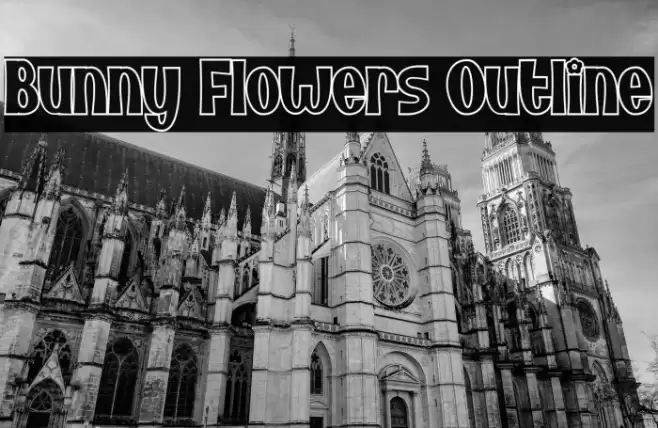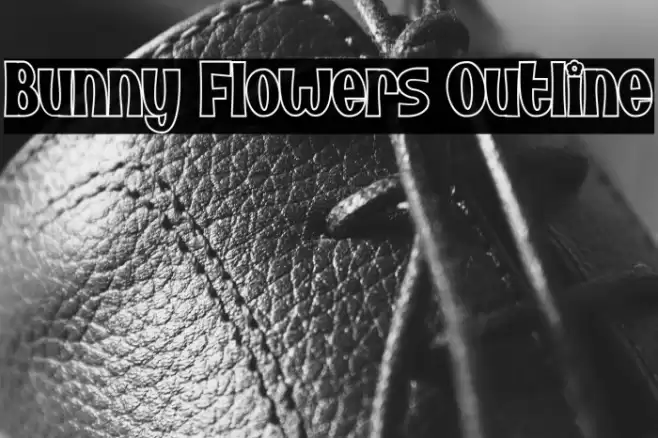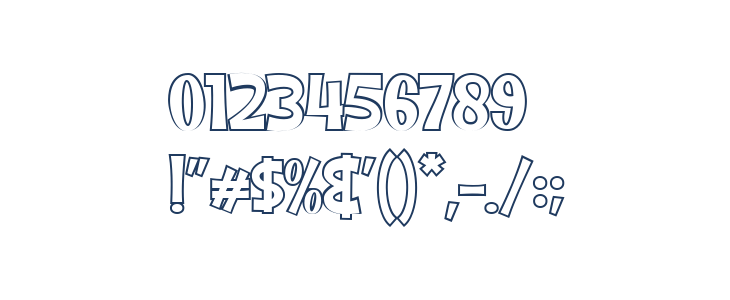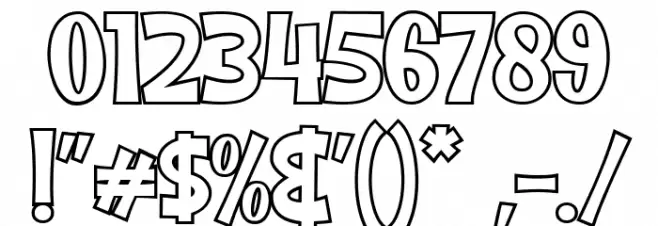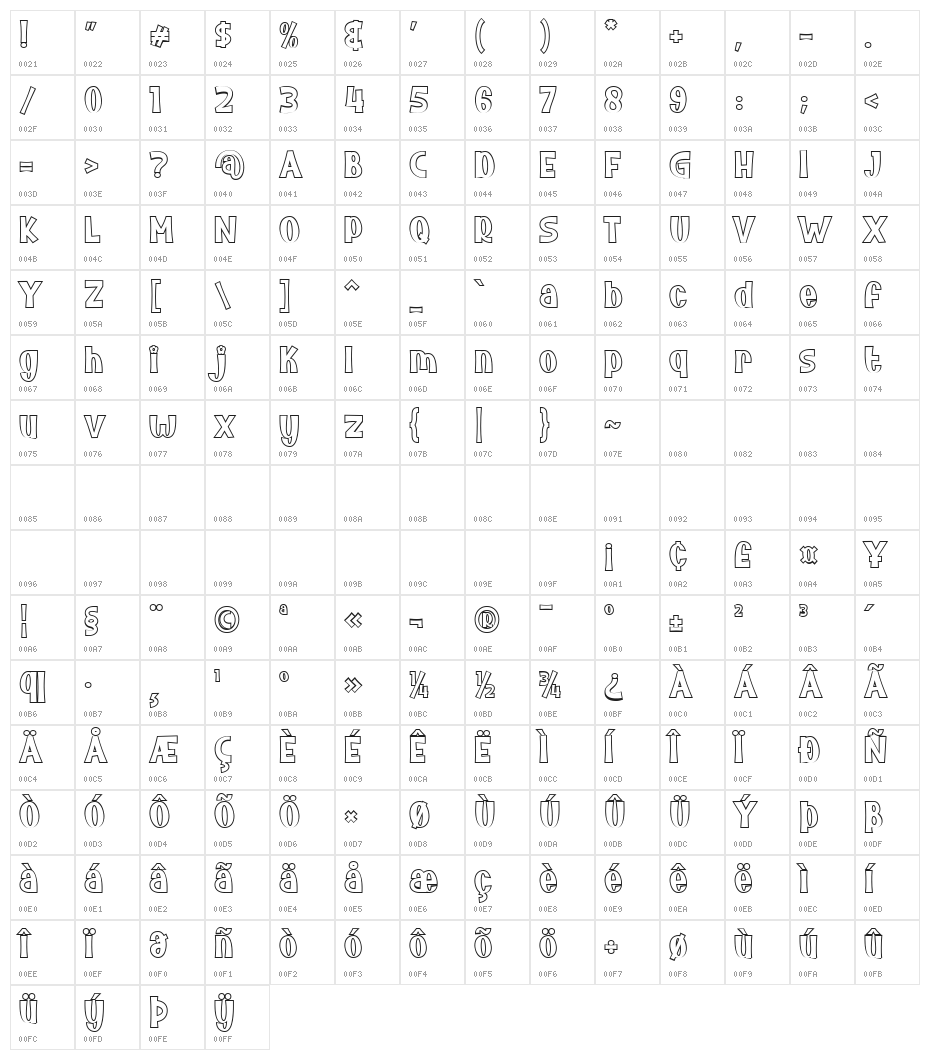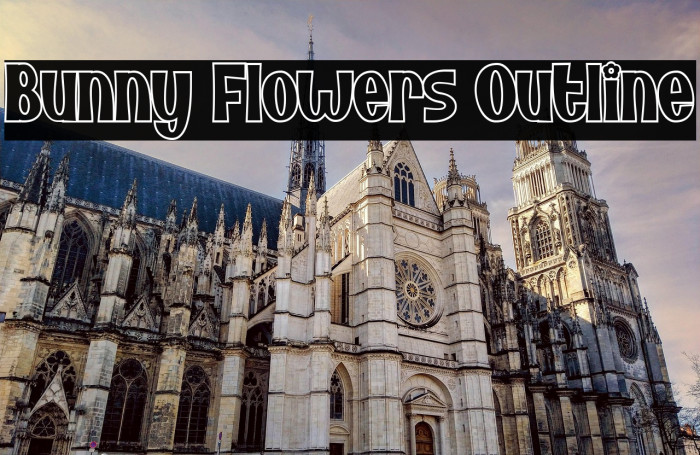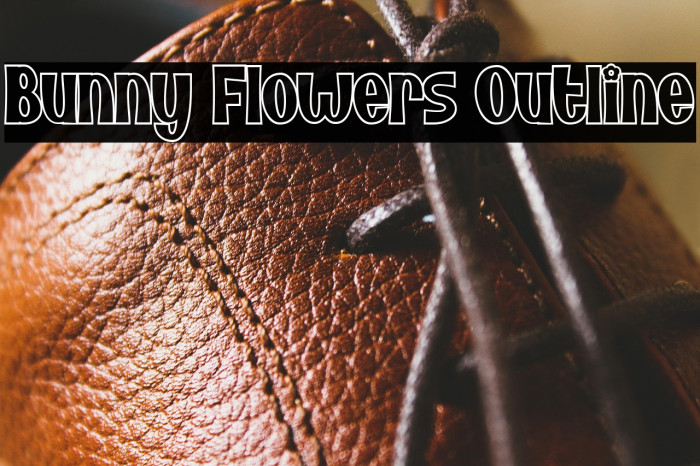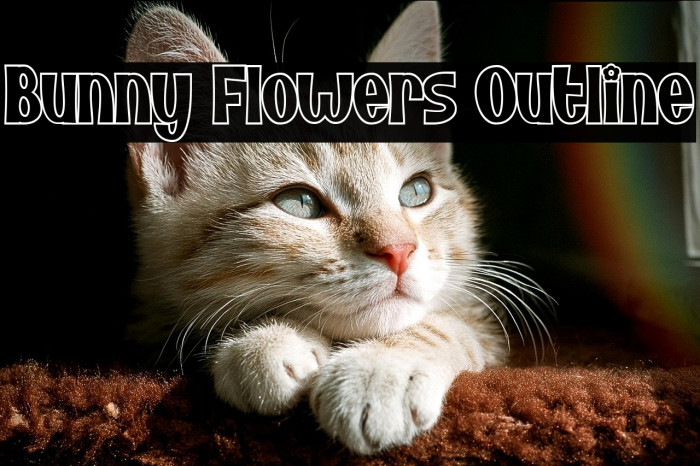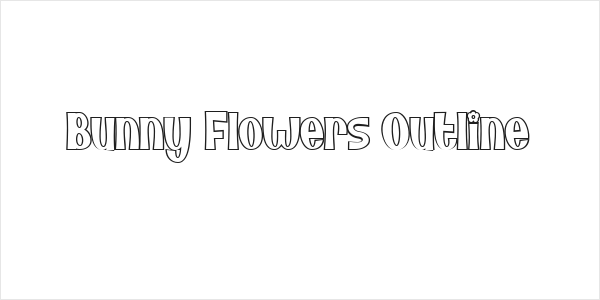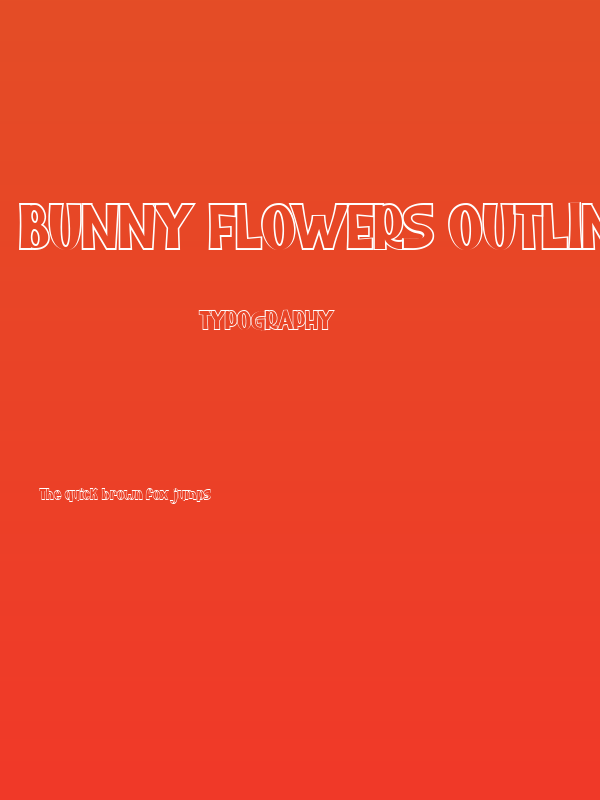
Bunny Flowers Outline Font
Bunny Flowers Outline Description
This playful and whimsical font features bold, outlined characters with a hand-drawn aesthetic. Each letter is crafted with a thick outline, giving it a cartoonish and fun appearance. The uppercase and lowercase letters maintain a consistent style, with rounded edges and a slightly irregular shape that adds to the font's charm. The numbers and special characters follow the same design principles, ensuring a cohesive look across all elements. This font is perfect for projects that require a light-hearted and creative touch.
A playful, outlined font with a hand-drawn, cartoonish style from Cartoon fonts.
- Proposed Projects: Ideal for children's books, playful posters, greeting cards, and creative branding.